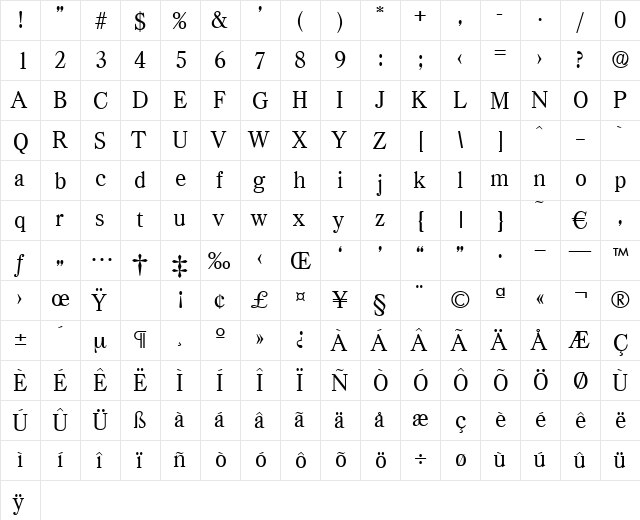
Casad-Regular Font Preview
Casad-Regular Regular
Casad-Regular Font Details
Design Context for Casad-Regular Typeface
Casad-Regular takes a measured approach to typography — its balanced proportions and neutral character make it a reliable workhorse for both digital and print work.